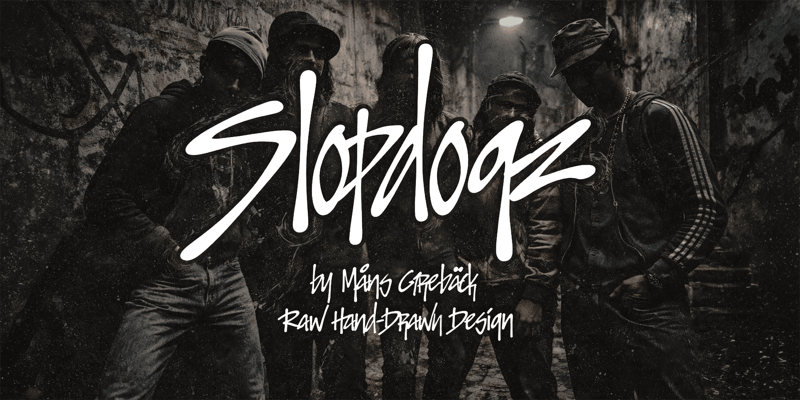
Slopdogz
NOTE: This font is for PERSONAL USE ONLY! To purchase a commercial license, visit: https://www.mansgreback.com/product/slopdogz Slopdogz is a raw, hand-drawn font with an aggressive flow and a loose, street-level attitude. The letterforms are written in sharp motion, with uneven pressure, fast strokes, and a slightly reckless rhythm. Each character carries the texture of a marker dragged across rough surface, giving the type a nervous energy that looks alive. For questions, please visit https://mansgreback.com/faq